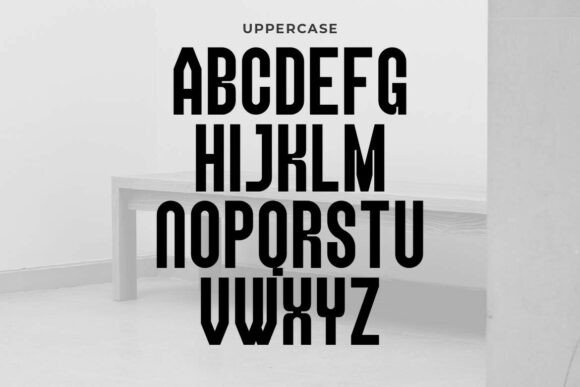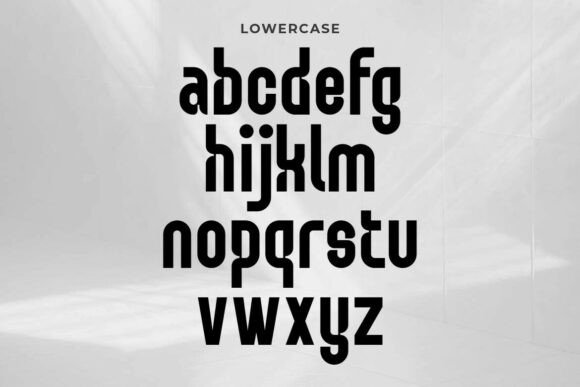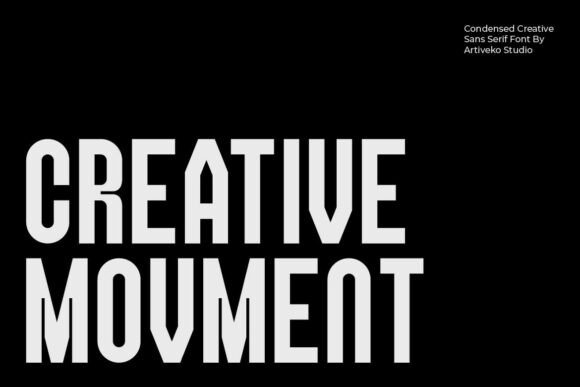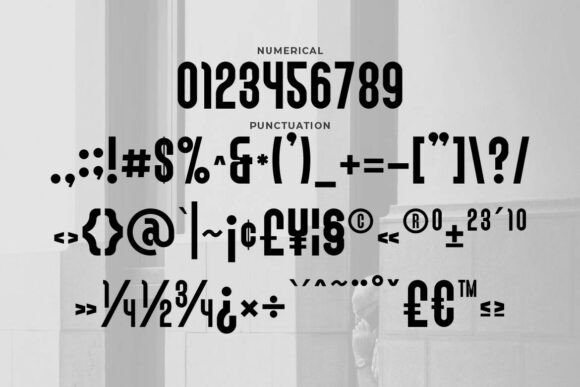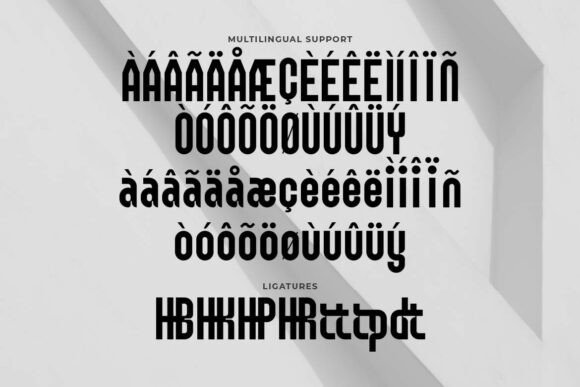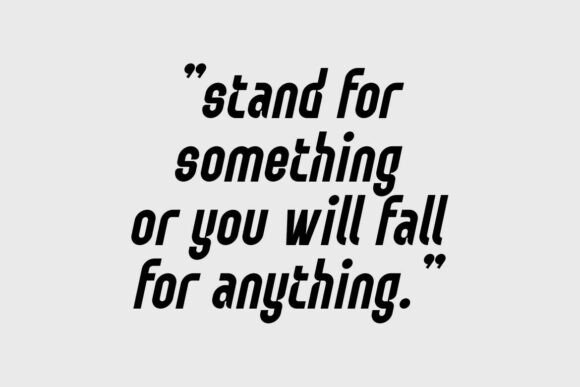
Introduction to Pushkey Font
Pushkey is a modern condensed sans serif typeface designed to deliver strong visual impact while maintaining efficient space usage.
With tall proportions, clean lines, and a sleek narrow structure, Pushkey creates bold headlines and striking layouts without overwhelming the composition .
Key Features of Pushkey Font